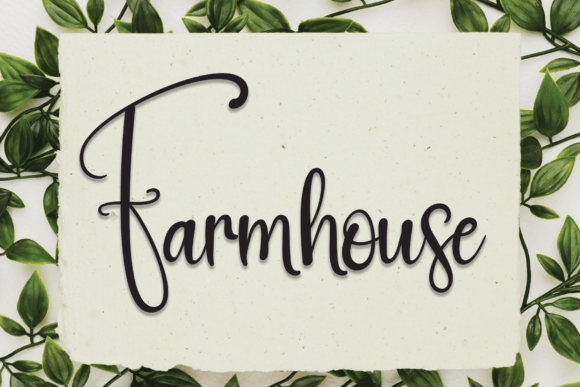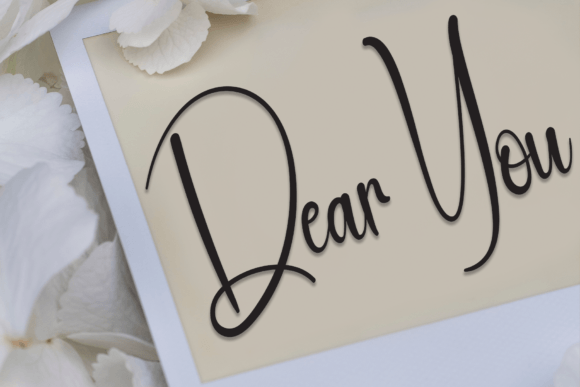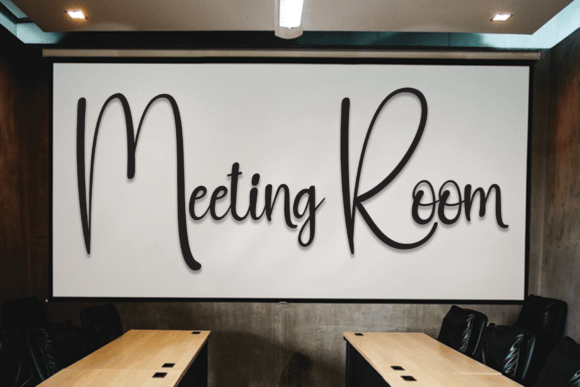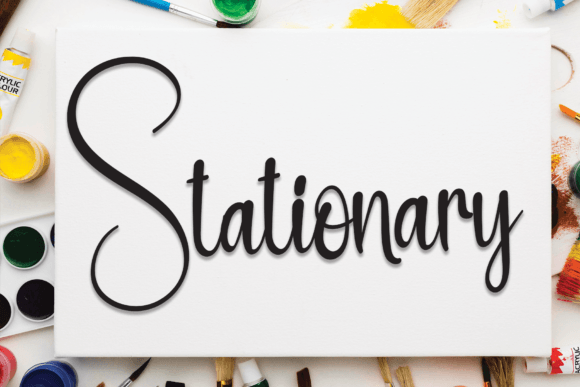
Rain Font
About Rain Font
Rain font is a simple and friendly handwritten typeface designed to bring a warm, personal touch to your creative projects. Whether you are working on crafts, digital designs, presentations, or greeting cards, this font offers a versatile and approachable style that fits any occasion.
Versatile Uses for Rain Font
Rainfont fits perfectly into many design applications, including:
• Handmade crafts and DIY projects
• Digital designs for websites, social media, and marketing
• Presentations that require an engaging and clean look
• Greeting cards that deliver heartfelt messages
Its simple yet friendly style ensures that Rainfont enhances your work without distracting from your content. It’s the perfect font to download for a variety of creative needs.